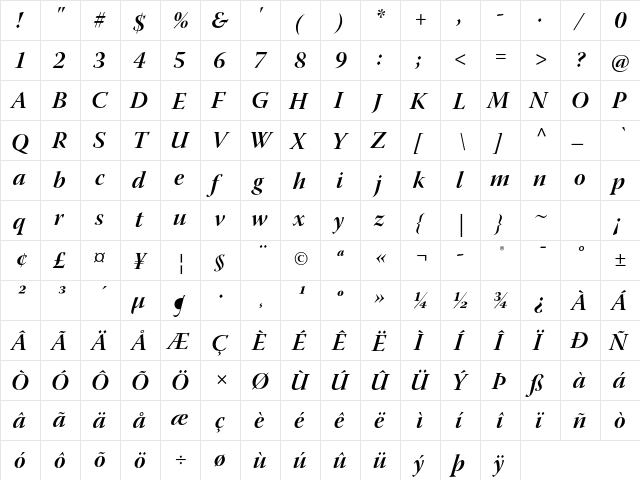
Warnock Pro Bold Italic Display
| Designer | Robert Slimbach |
Design Context for Warnock Pro Typeface
Warnock Pro brings ornamental detail and strong personality to headlines and identities, where visual impact matters more than quiet functionality. The slanted form adds forward momentum and visual energy. Its bold stroke weight gives it real presence on the page.
Font Pairing: Pair with a clean neutral sans-serif for body copy to let Warnock Pro's character lead without overwhelming the composition.
Pro Tip: Use Warnock Pro exclusively at display sizes — it was designed to be seen, not read at length. Let a neutral companion handle body copy.